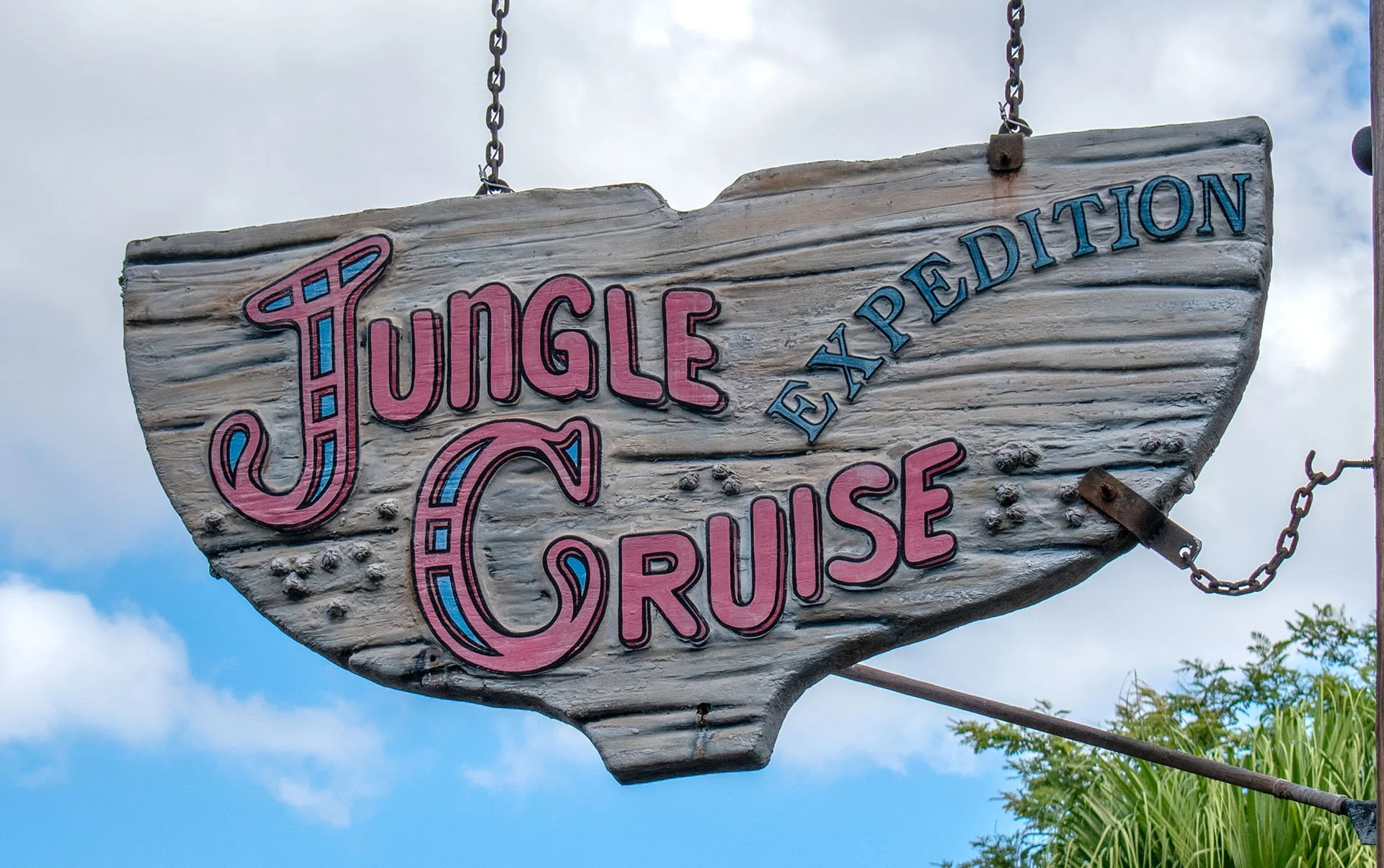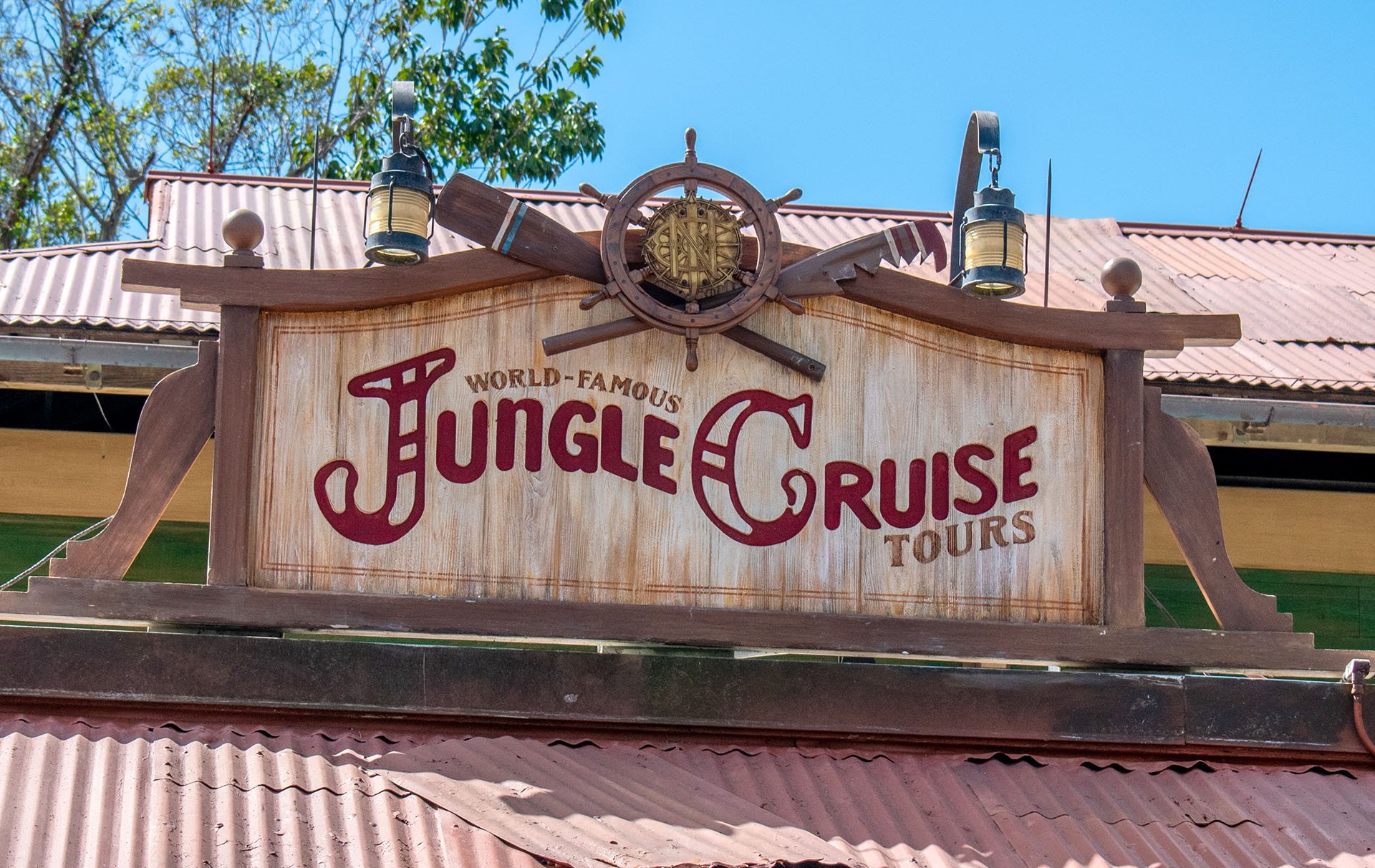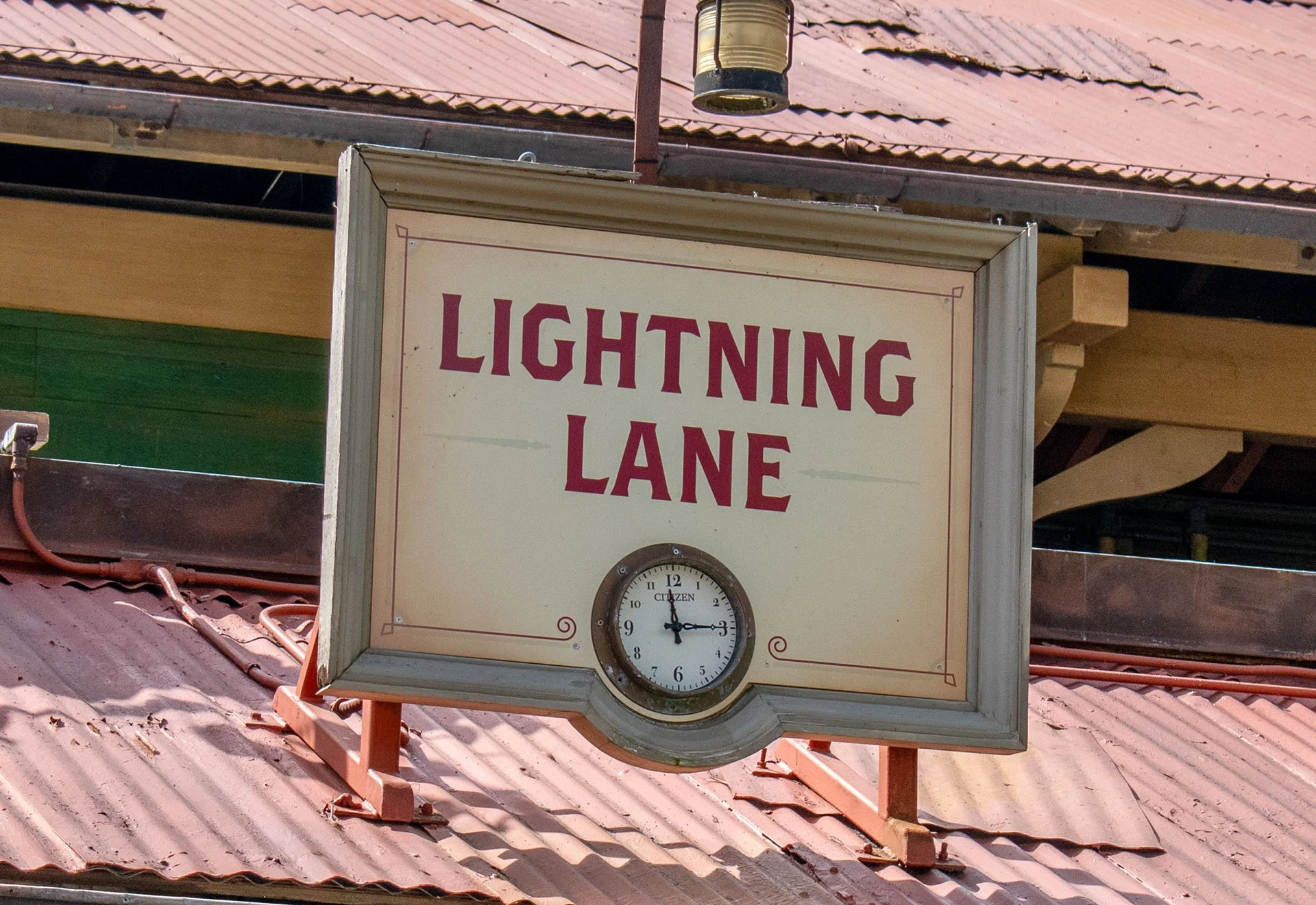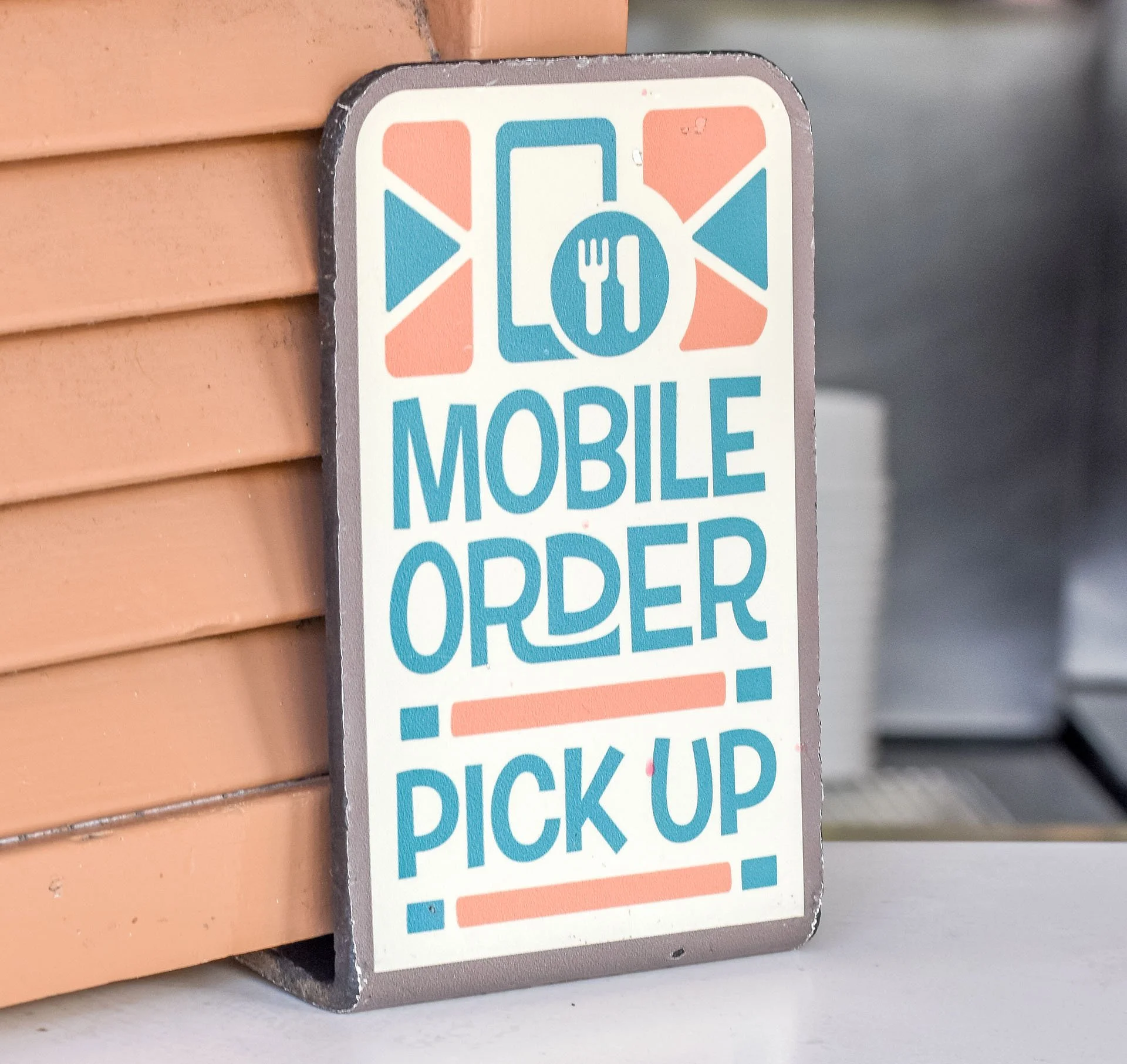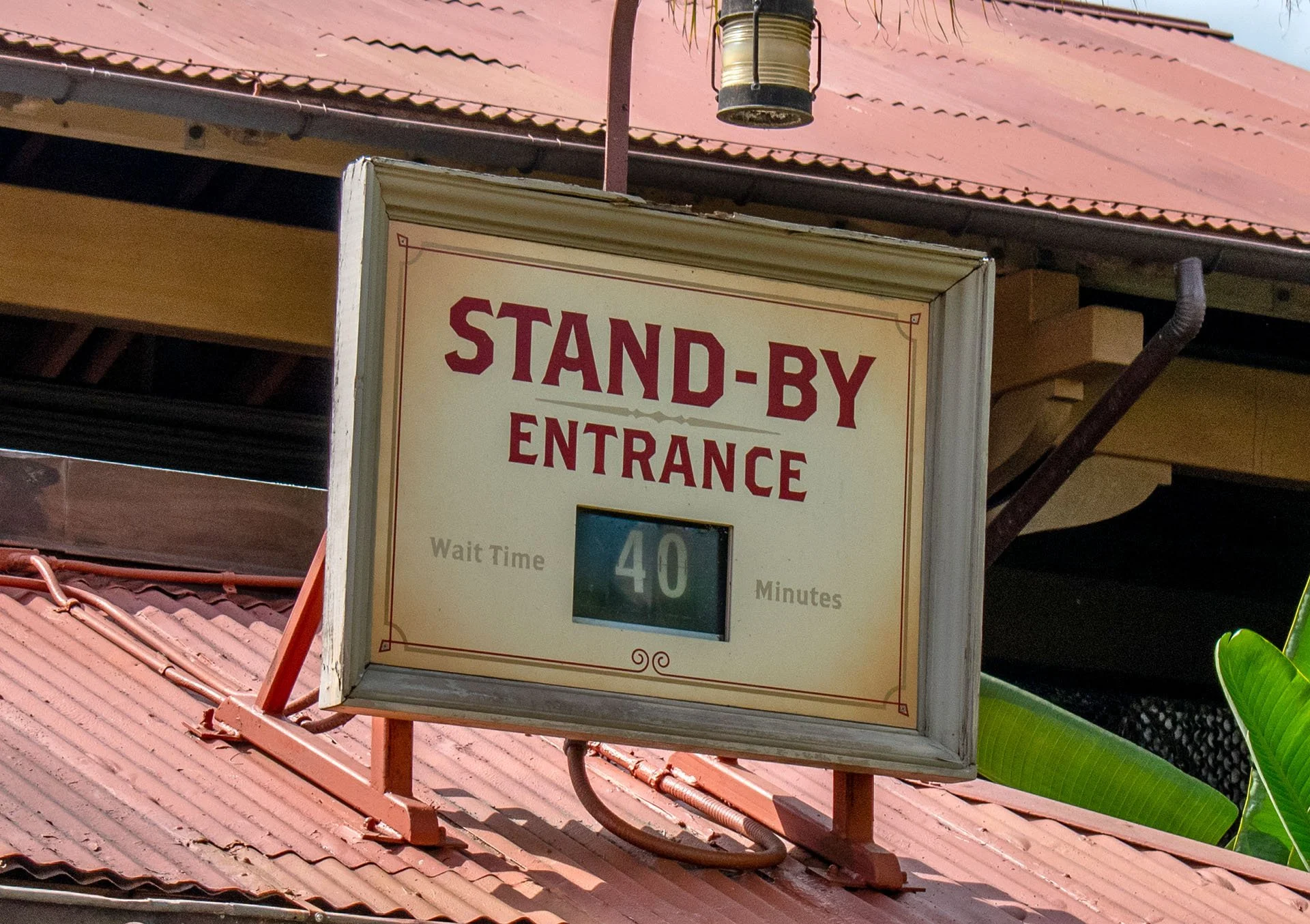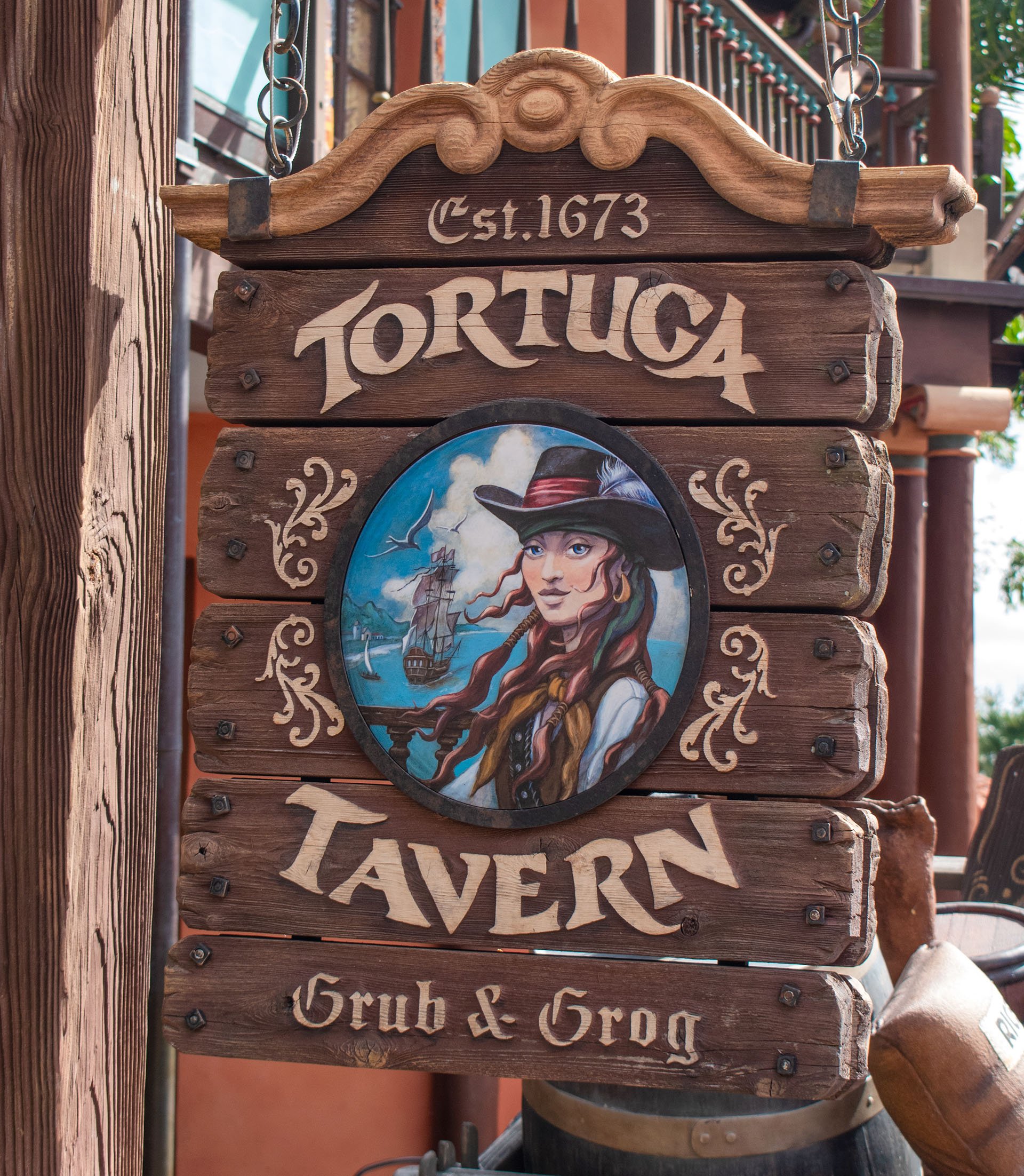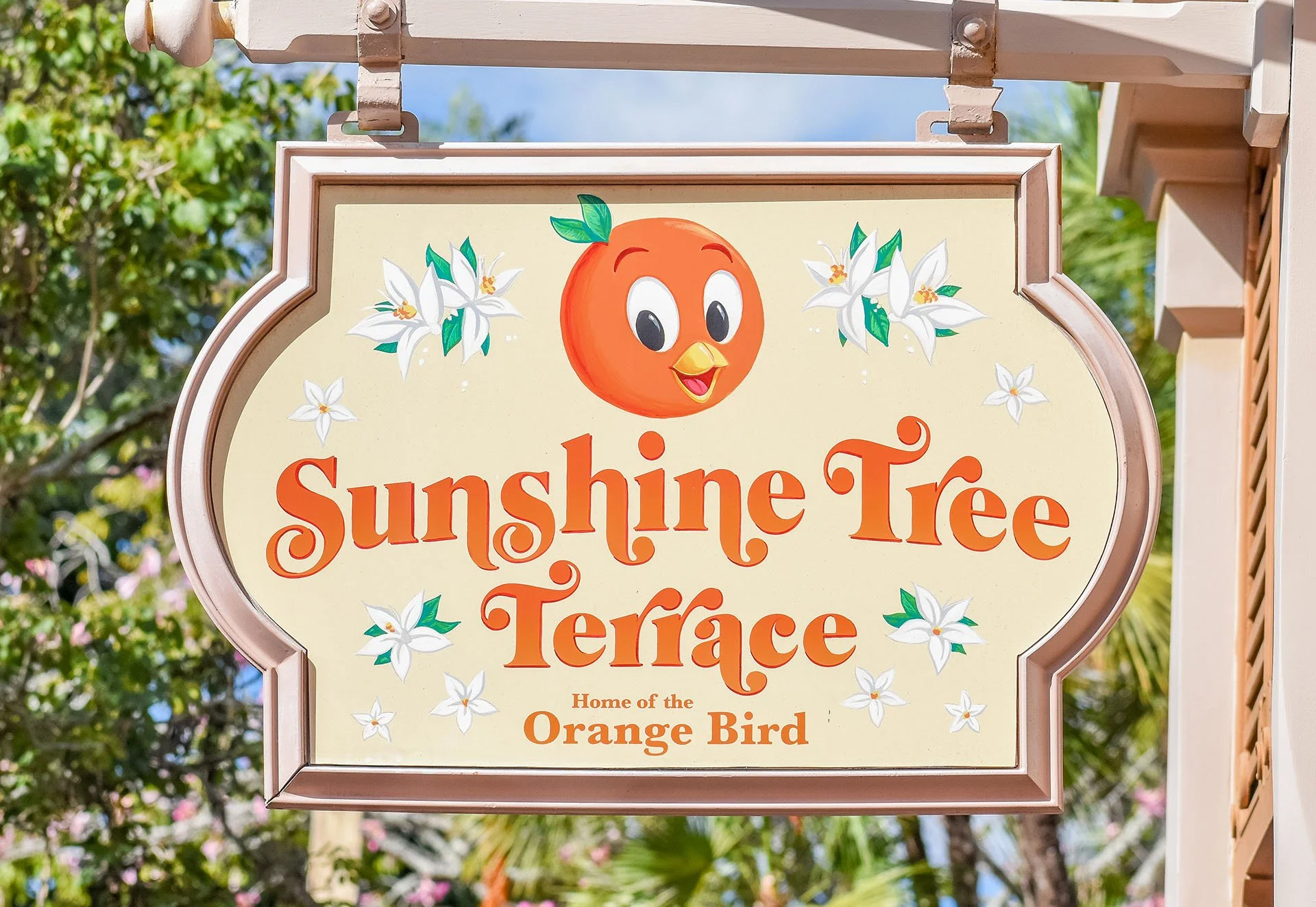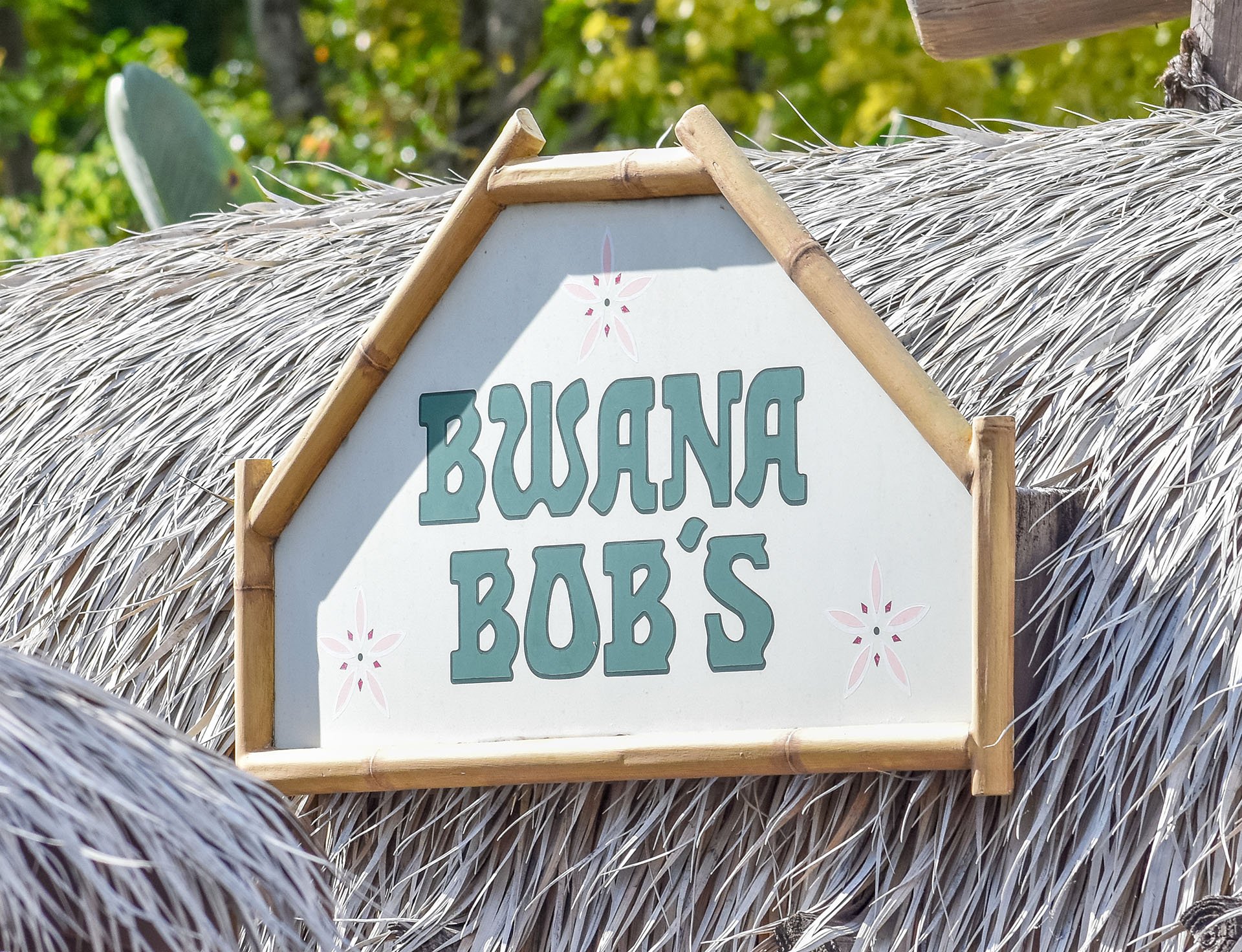
Adventureland
A sign that reads "STAND-BY ENTRANCE" with a digital display showing a wait time of 40 minutes, mounted on a red metal frame on a roof with red tiles.
Jungle Cruise
A sign instructs visitors to board a jungle boat to travel exotic rivers guided by a skipper. It also mentions supervising children and wheelchair access.
A sign with the words 'Lightning Lane' and a clock showing the time 2:16, mounted on a building with a red metal roof.
A wooden sign with painted pink and blue letters reads 'Jungle Cruise Expedition'. The sign is weathered and hangs from chains, with a partly cloudy sky and trees in the background.
Pirates of the Caribbean
Swiss Family Treehouse
The Magic Carpets of Aladdin
Walt Disney’s Enchanted Tiki Room